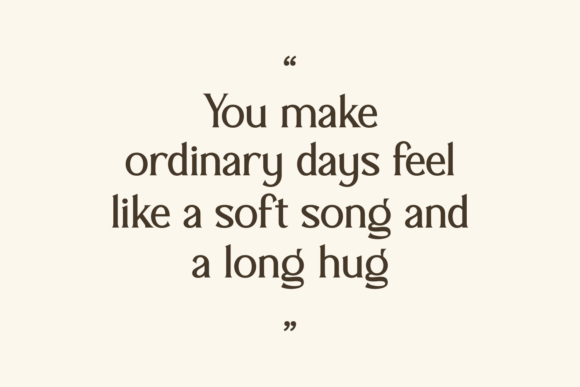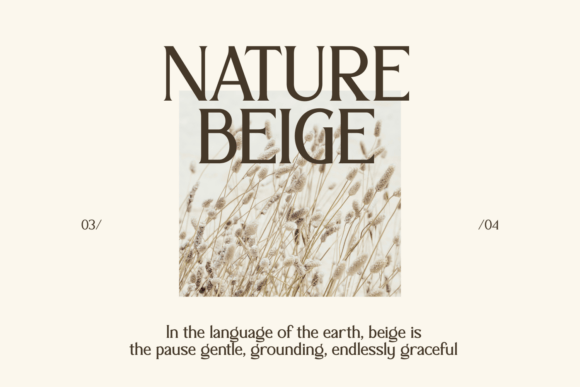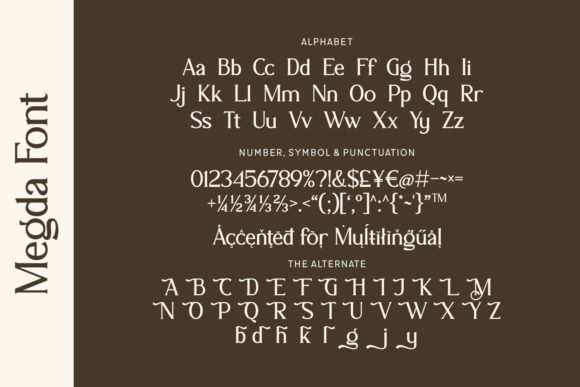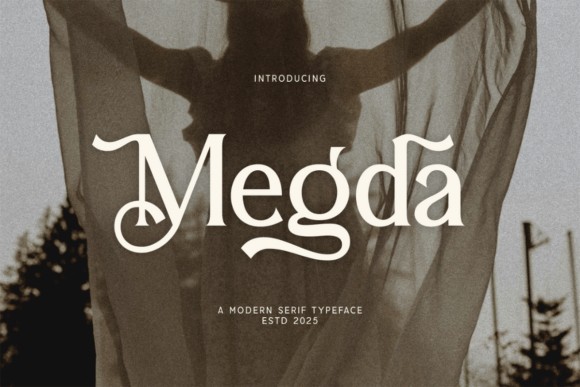
Introduction to Megda Font
Megda is a bold and expressive modern serif typeface with a distinctive flair.
Featuring whimsical curves, creative ligatures, and ornamental swashes, it adds a magical yet professional touch to branding, editorial design, packaging, and fashion projects With its stylish balance of classic elegance and modern artistry, Megda commands attention and stirs emotion in every letter.
Key Features of Megda Font
Why Choose Megda Font?
Megda Font offers exceptional quality and versatility, making it a valuable addition to your design toolkit. Whether you’re creating for personal projects or commercial use, Megda Font delivers professional results.